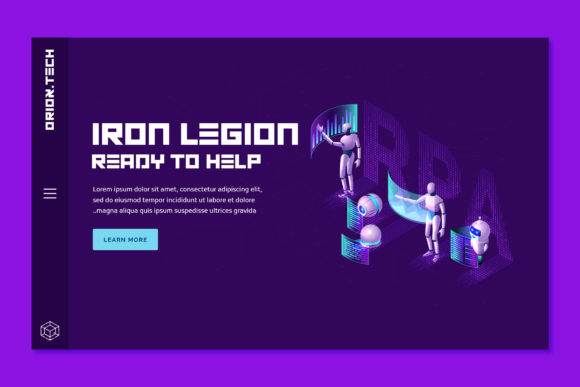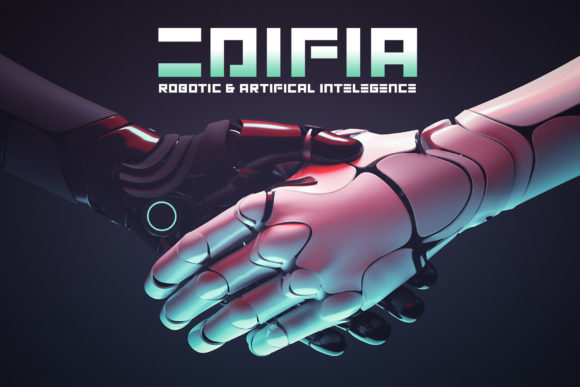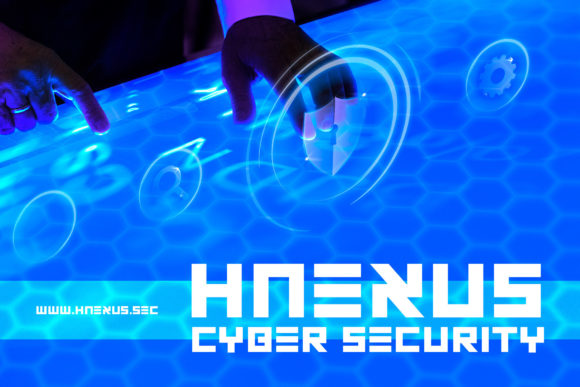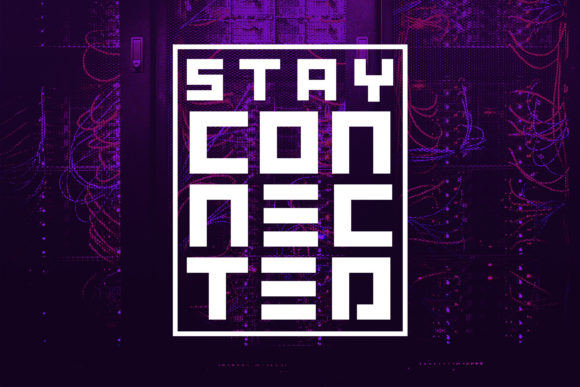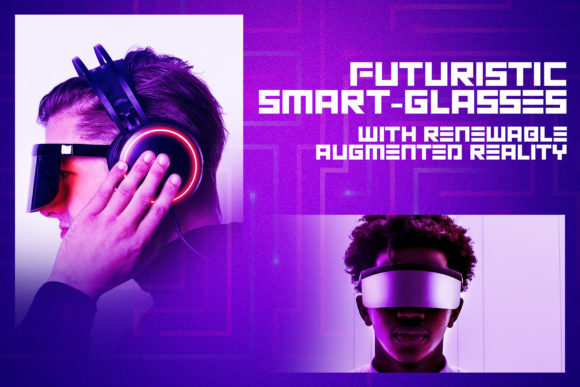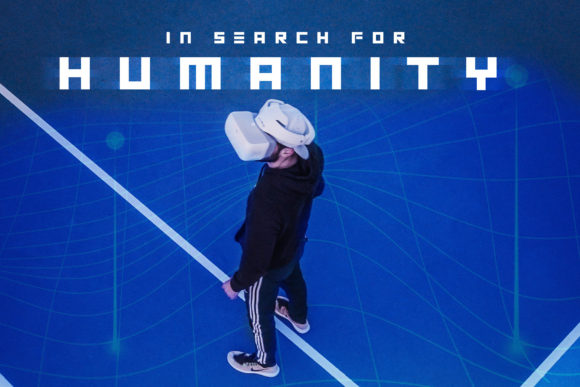
The Quest for the Perfect Font: How Bechon Became My Go-To
I’ll never forget the design project that led me to discover Bechon Font. I was working on a futuristic sci-fi poster, and I just couldn’t find the right font to capture the essence of my vision. My client wanted something modern, bold, and attention-grabbing. I scoured the internet, tried countless fonts, but nothing seemed quite right. That was until I stumbled upon Bechon.
Bechon is a cool and futuristic display font that instantly elevated my design. Its modern and bold vibe perfectly complemented my sci-fi theme. I knew right then and there that I had found my new go-to font for any project requiring a touch of futurism.
An Honest Review of Bechon Font
What I Love About Bechon ✨
- ✅ Unique and Memorable: Bechon has a distinct, otherworldly feel that sets it apart from more generic fonts.
- ✅ Versatile: Despite being a display font, Bechon works surprisingly well for both headings and short paragraphs.
- ✅ Easy to Read: Even at smaller sizes, Bechon remains clear and legible, making it perfect for posters, flyers, or digital screens.
- ✅ OpenType Features: Bechon comes with a range of OpenType features, including stylistic alternates and glyphs, which add to its versatility.
- ⚠️ Limited Use in Body Text: While Bechon is great for headings and titles, it’s not ideal for longer body text due to its bold and futuristic style.
- ⚠️ May Not Suit All Brands: Bechon’s strong personality might not align with every brand’s tone or style, so use it judiciously.
The Backstory of Bechon Font
Bechon was designed by a team of typographers who wanted to create a font that embodied the spirit of futurism and innovation. Inspired by sci-fi movies and space exploration, they crafted a font that would be both bold and elegant. The result is Bechon, a font that instantly adds a touch of modernity and sophistication to any design.
| Font Name | Bechon Font |
| Author | Drizy Studio |
Q: What type of projects is Bechon best suited for?
A: Bechon is perfect for projects that require a futuristic or sci-fi touch, such as posters, flyers, digital screens, and tech-related designs.
Q: Can I use Bechon for body text?
A: While Bechon can be used for short paragraphs, it’s primarily designed for headings and titles due to its bold style.
Q: Does Bechon support OpenType features?
A: Yes, Bechon comes with a range of OpenType features, including stylistic alternates and glyphs, which can be accessed in compatible design software.
Q: Is Bechon suitable for branding and logos?
A: Bechon’s unique and memorable style makes it a great choice for branding and logos, especially for tech or futuristic brands.